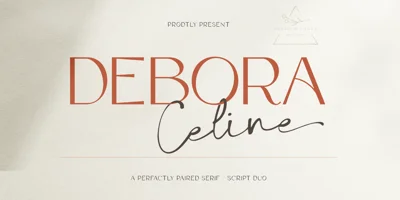
Debora Celina Script
Debora Celina Script Font
Debora Celina Script Font is perfect for elegant wedding invitations, luxury stationery designs, romantic love letters, high-end fashion branding, sophisticated beauty campaigns, graceful calligraphy workshops, refined restaurant menus, intimate boutique identity, and feminine social media content. This exquisite typeface brings flowing elegance and romantic sophistication to both digital and print design applications.
Debora Celina Script Font is exciting because it embodies the graceful beauty and romantic charm of classical feminine script writing, making it an exceptional choice for designers who want to convey intimate elegance with authentic calligraphic appeal. Its flowing letterforms and romantic character provide the perfect combination of feminine sophistication and functional versatility, ensuring your projects communicate grace, romance, and script excellence that resonates with audiences seeking genuine elegant experiences and romantic authenticity.
The Debora Celina Script Font family includes elegant script variations and romantic elements, featuring regular and bold weights with complementary flowing styles, romantic ligatures, and calligraphic decorative flourishes. Each style maintains consistent script aesthetics while offering flexibility for different elegant applications, allowing designers to create graceful visual systems that reflect feminine values and romantic sophistication.
Whether you're designing for wedding industry, luxury brands, or romantic projects, Debora Celina Script Font delivers authentic script appeal and feminine sophistication that connects with audiences seeking genuine elegance and romantic experiences. This premium typeface offers designers the flowing grace and romantic charm needed to create designs that communicate script beauty, feminine elegance, and romantic excellence effectively. The font's graceful character makes it perfect for elegant branding, romantic campaigns, and script applications where authentic feminine credibility is essential. Download Debora Celina Script Font today and romance your creative projects with genuine script sophistication and feminine typography excellence that defines elegant design standards.